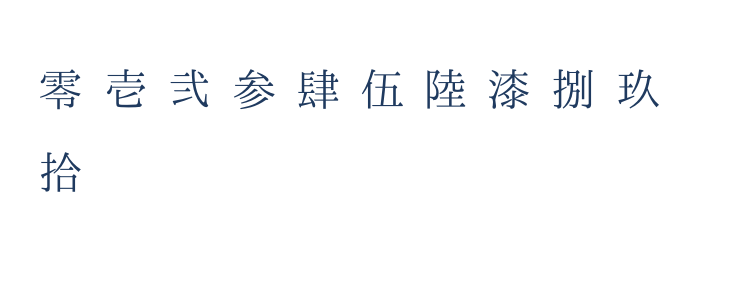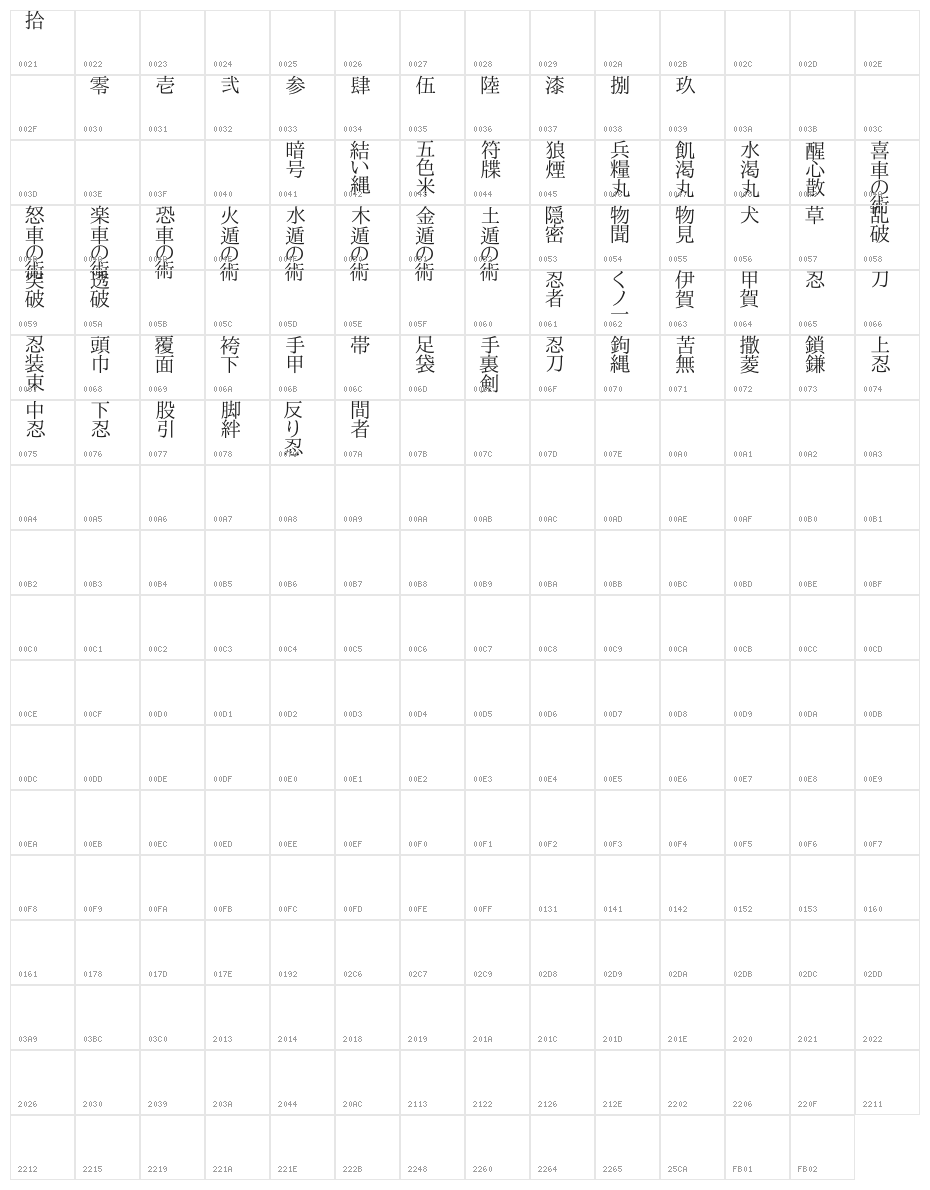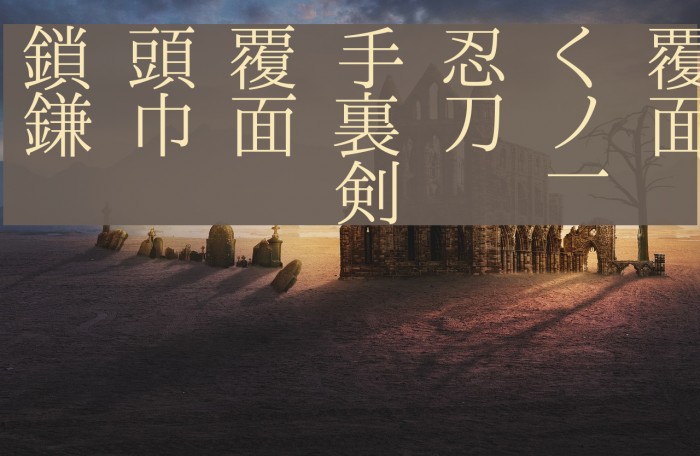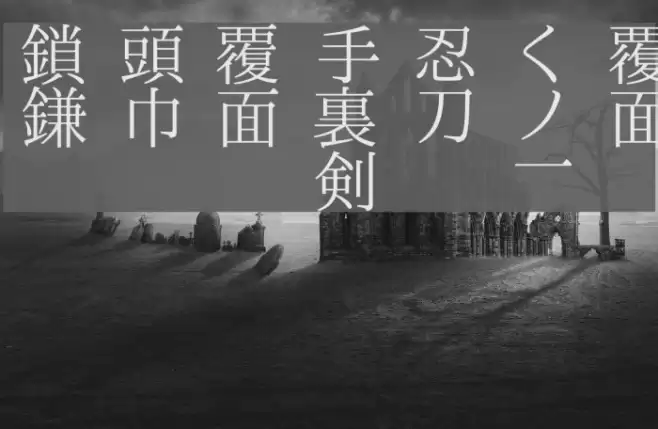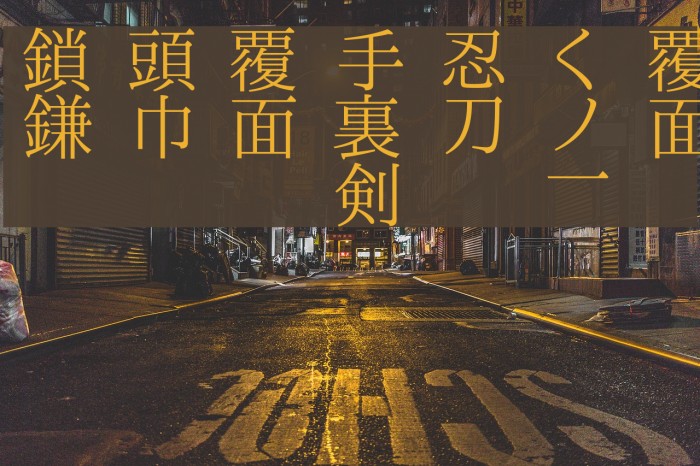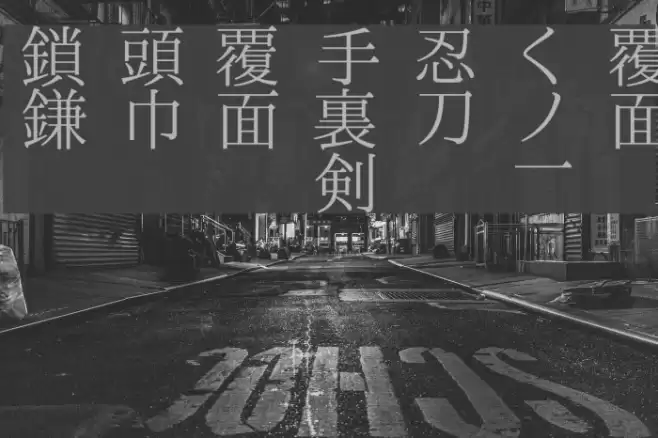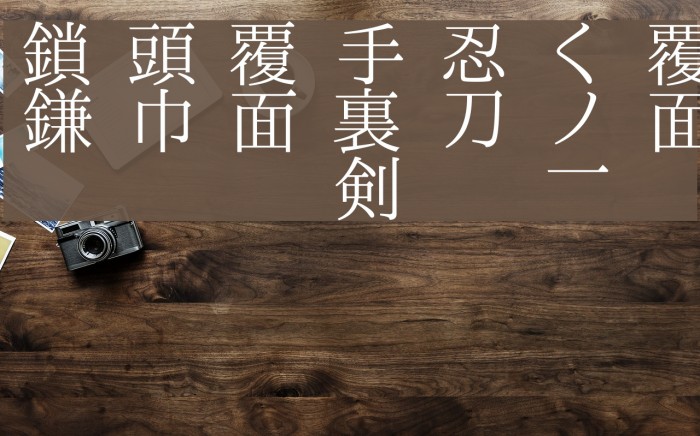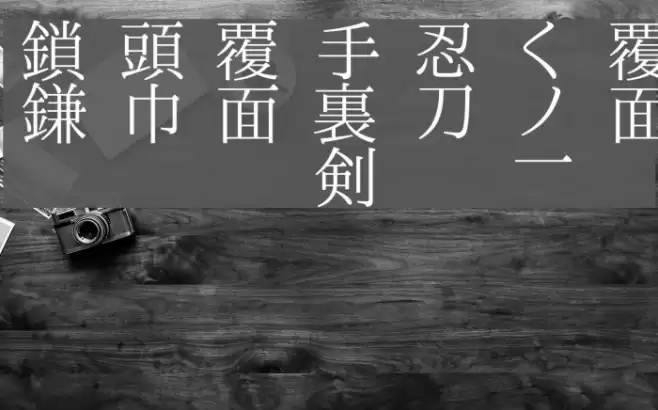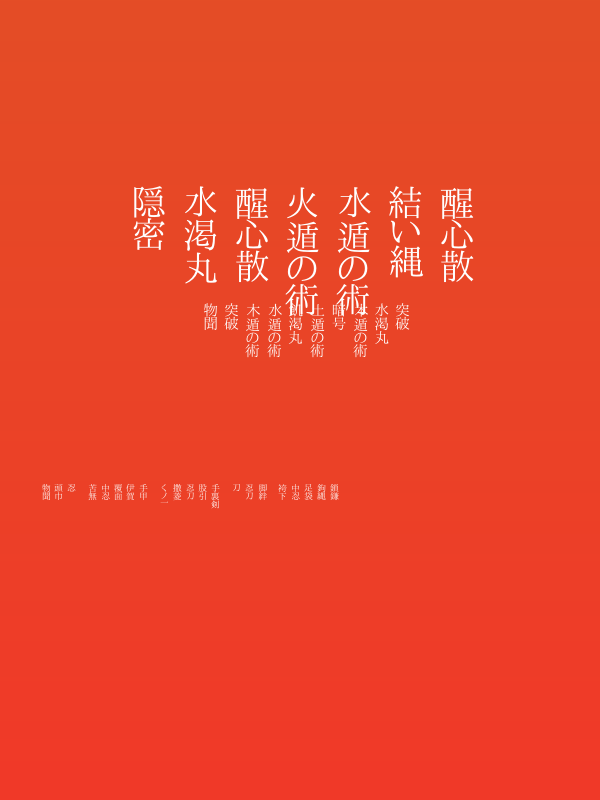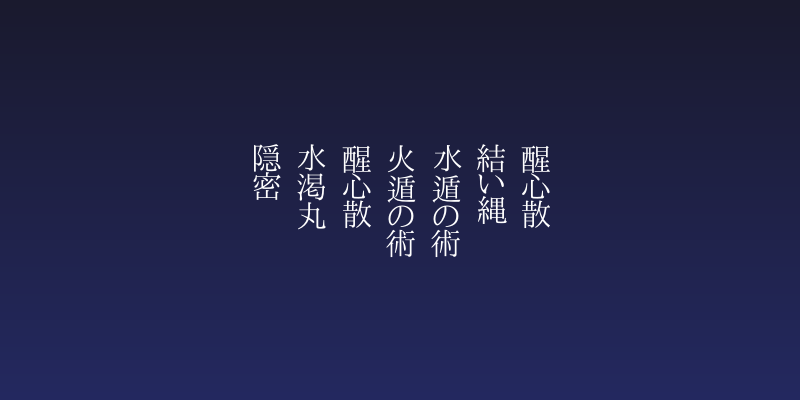
shinobi Font
shinobi Description
This font features traditional Japanese kanji characters with a classic and elegant style. The strokes are well-defined, with a balanced weight that gives each character a sense of harmony and precision. The characters are evenly spaced, providing a clean and organized appearance. The font's design reflects a timeless aesthetic, suitable for conveying a sense of tradition and cultural heritage. The overall style is both sophisticated and versatile, making it ideal for various applications that require a touch of authenticity and historical depth.
| Use Case | Logos, Educational materials, Cultural projects |
| Proposed Projects | Ideal for projects involving Japanese cultural themes, traditional artwork, historical documents, or educational materials. |